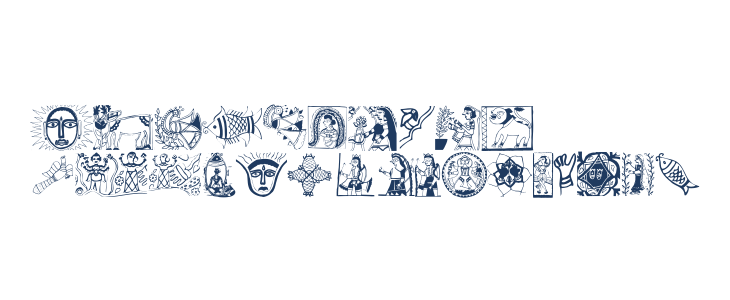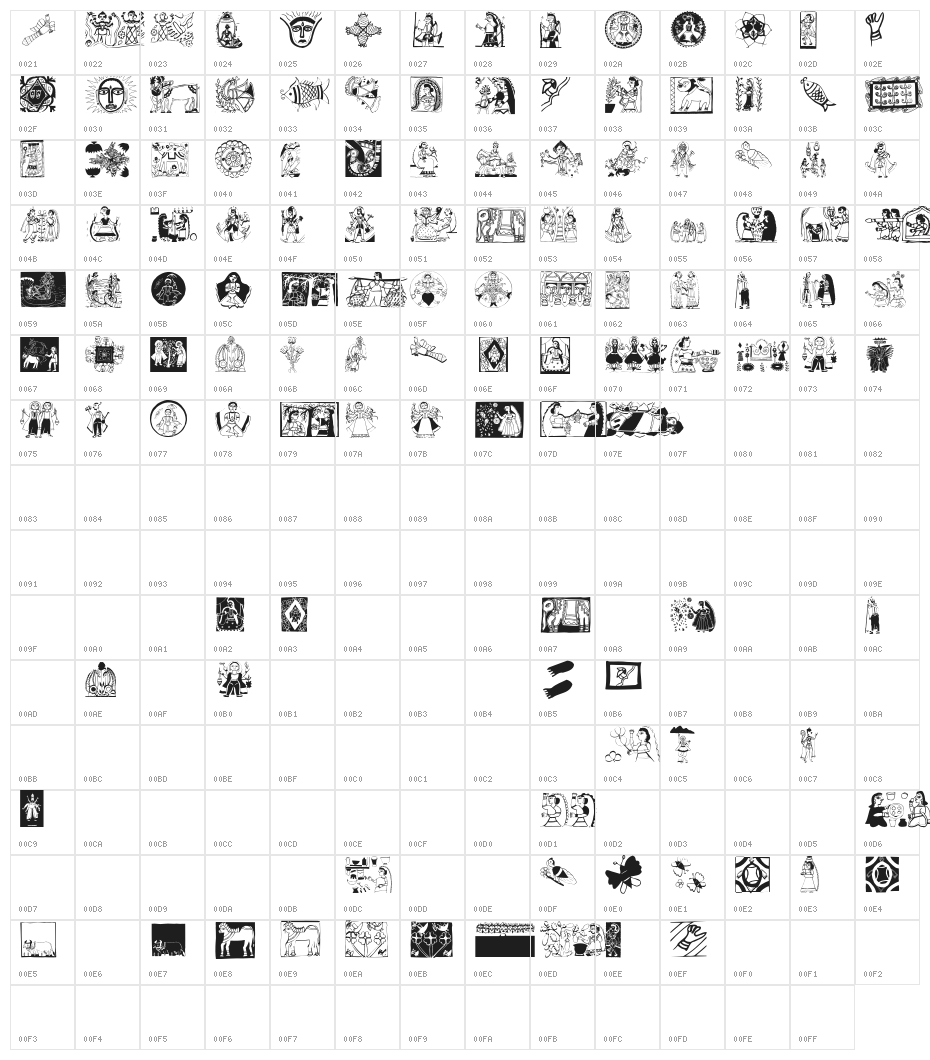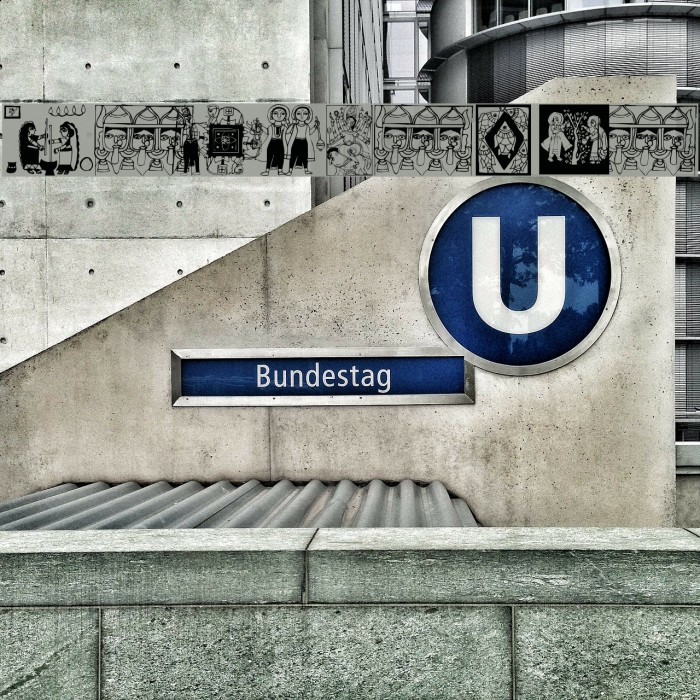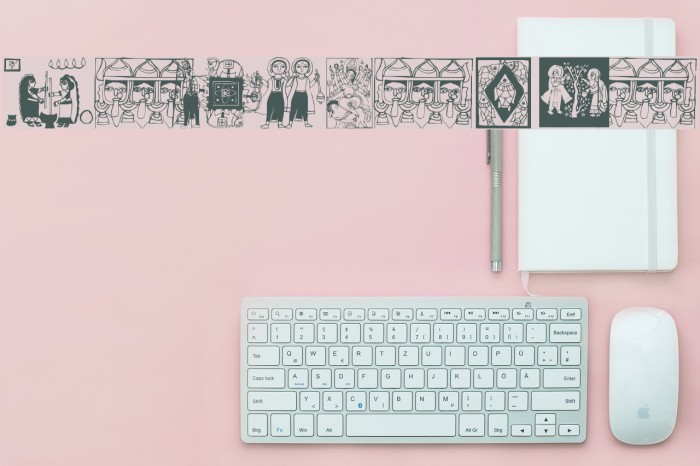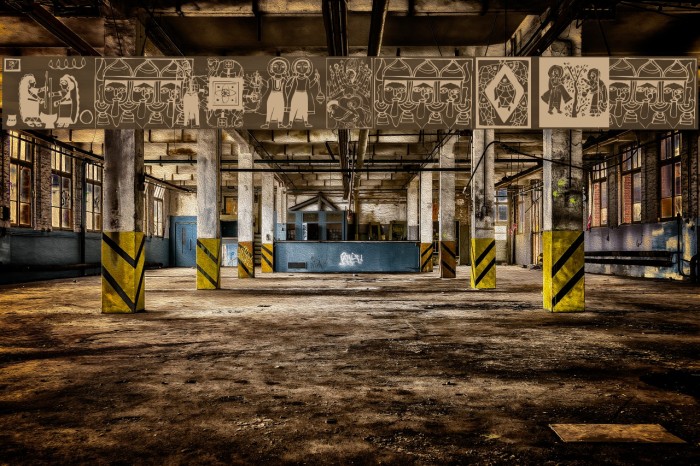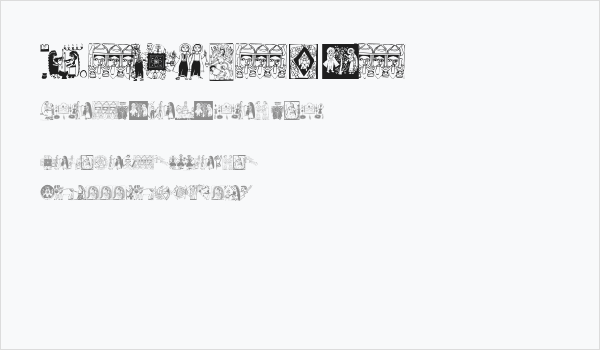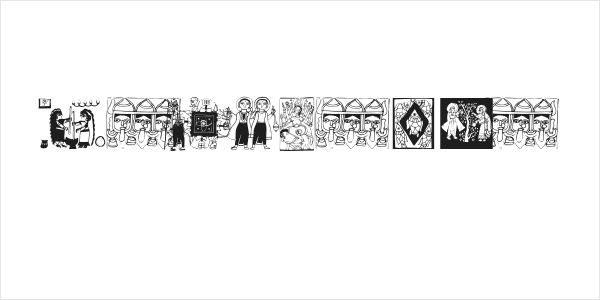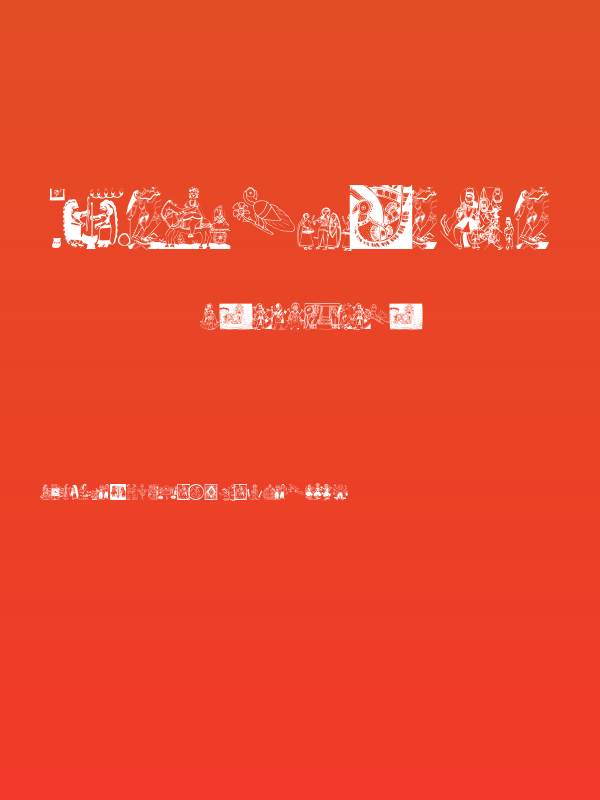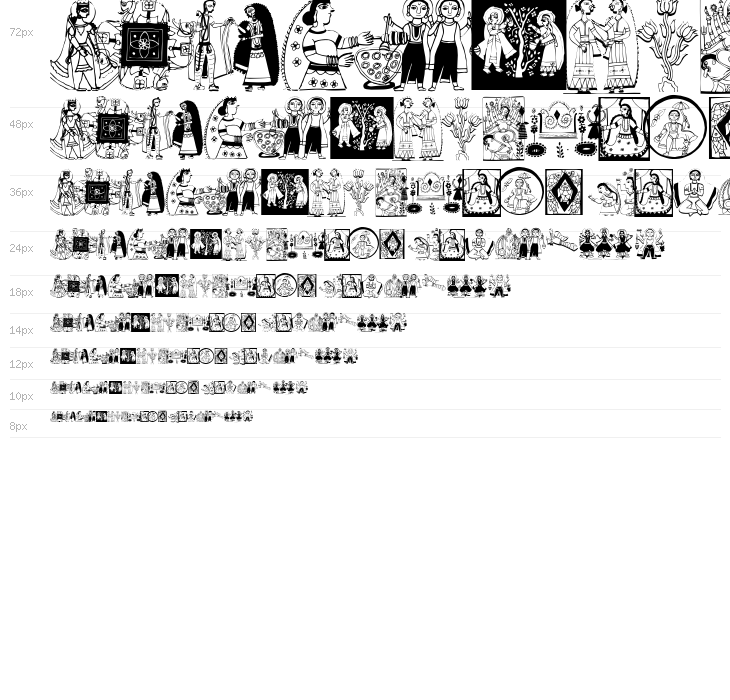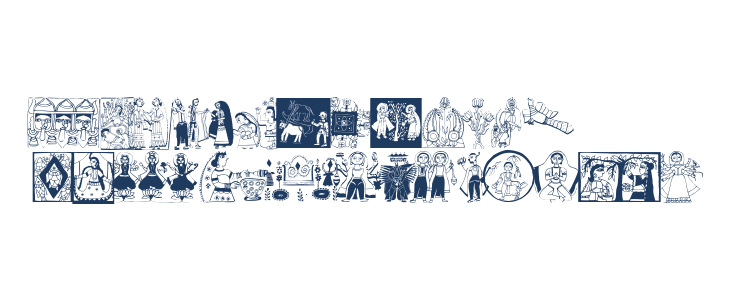
Madhubania Font
Madhubania Description
This is not a traditional font but rather a collection of intricate illustrations inspired by Madhubani art, a traditional Indian painting style. The images are detailed and depict various cultural and mythological scenes, often featuring human figures, animals, and nature motifs. The style is characterized by its use of fine lines, vibrant patterns, and a strong sense of symmetry and balance. Each illustration is unique, showcasing the rich heritage and storytelling aspects of Madhubani art.
Overall StyleTraditional, Cultural, Artistic
Use CaseArt projects, Cultural displays, Educational materials
Proposed ProjectsIdeal for cultural projects, art exhibitions, educational materials on Indian art, or decorative elements in design projects.